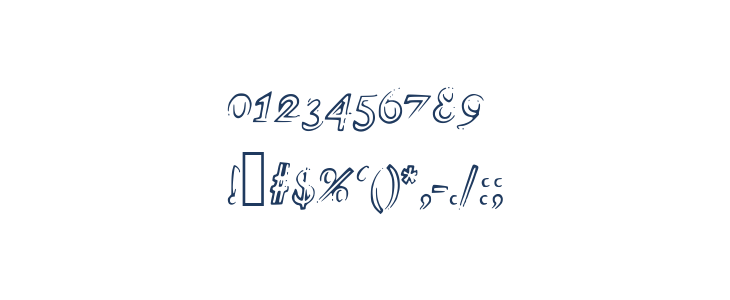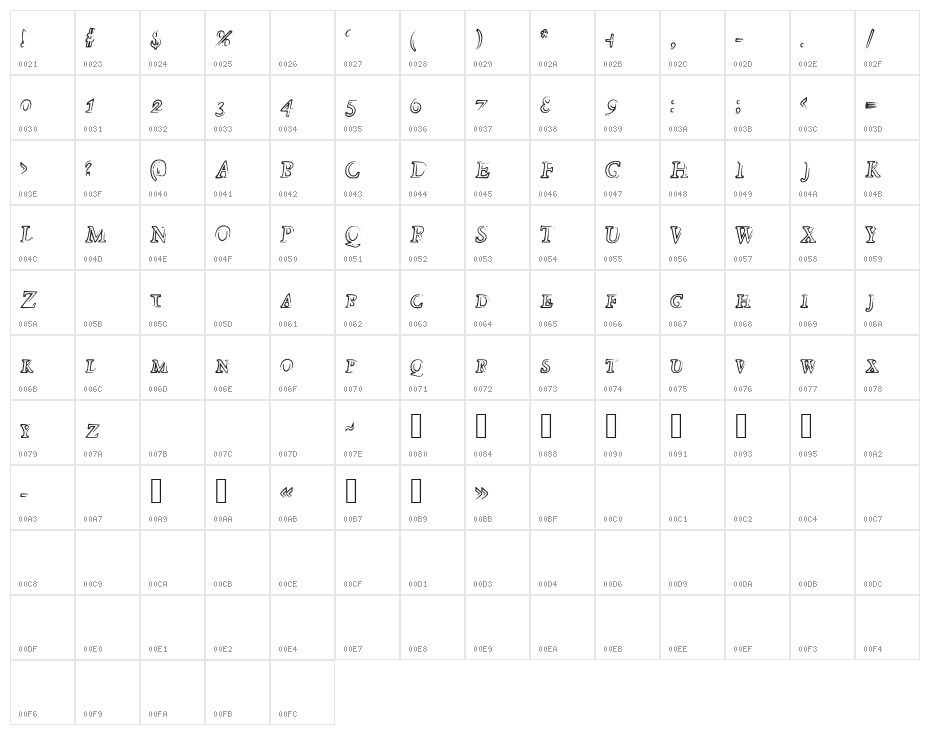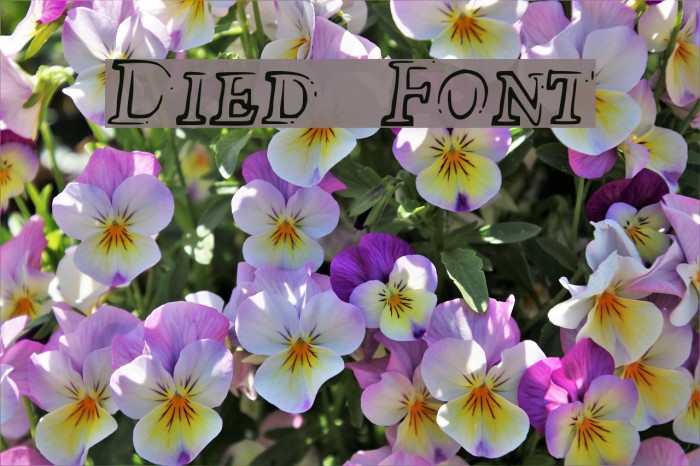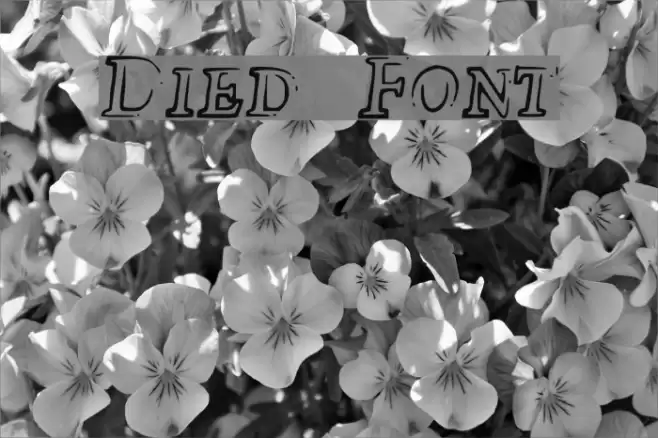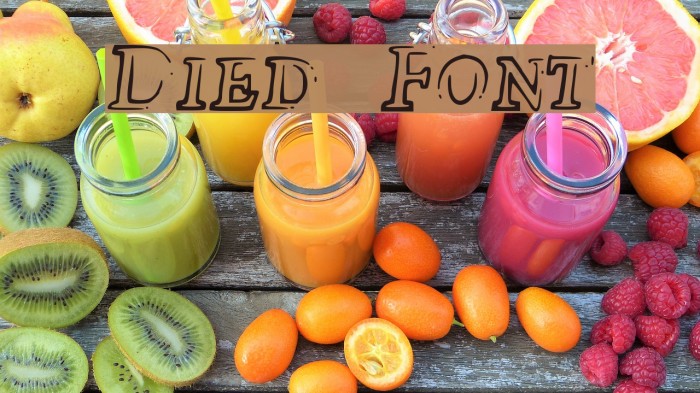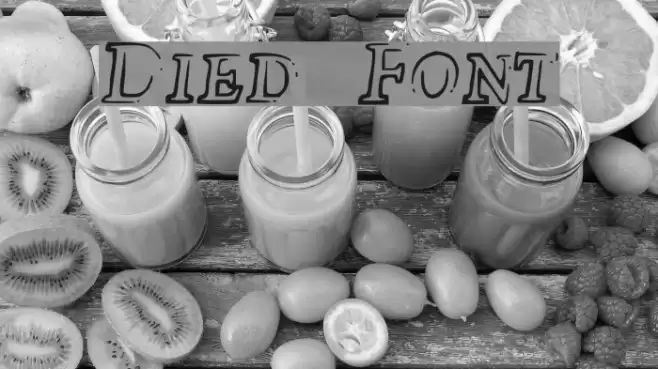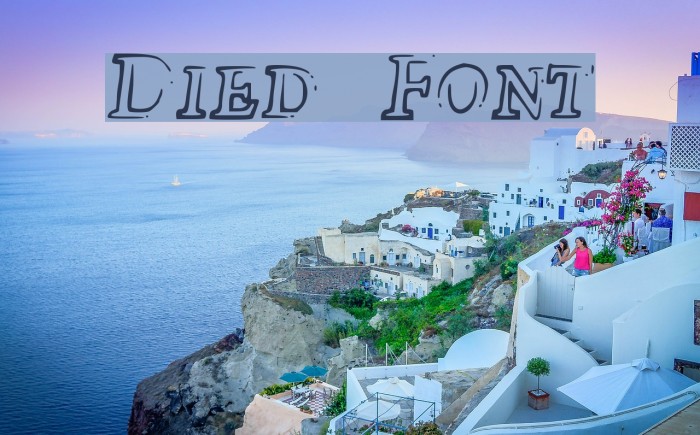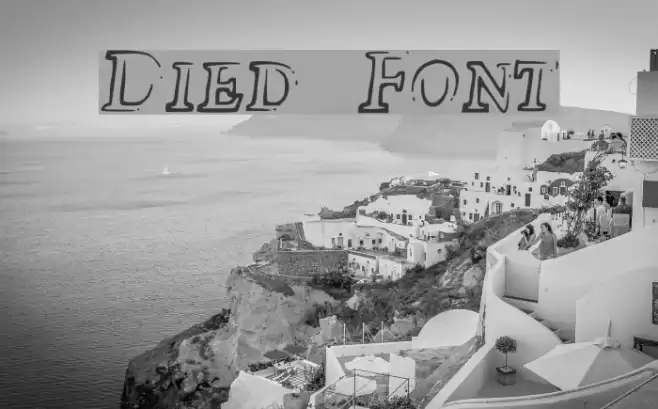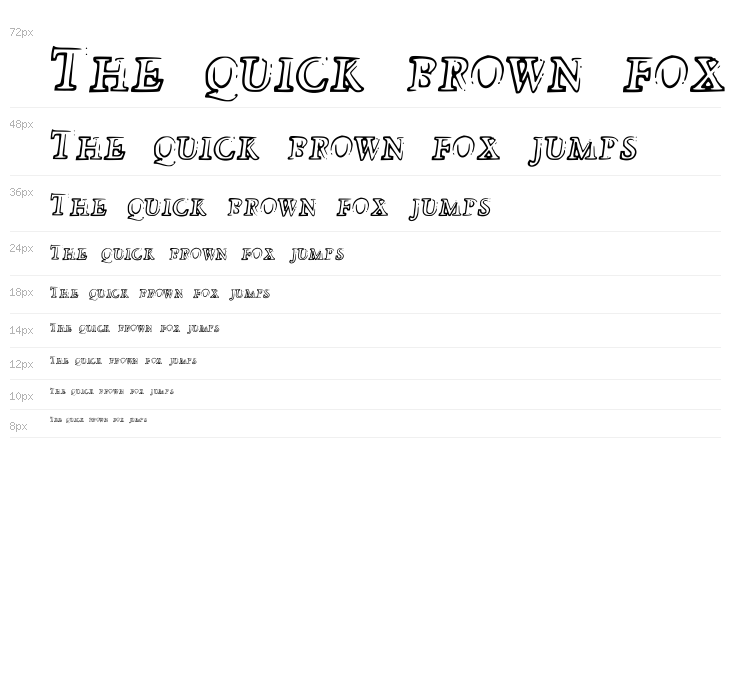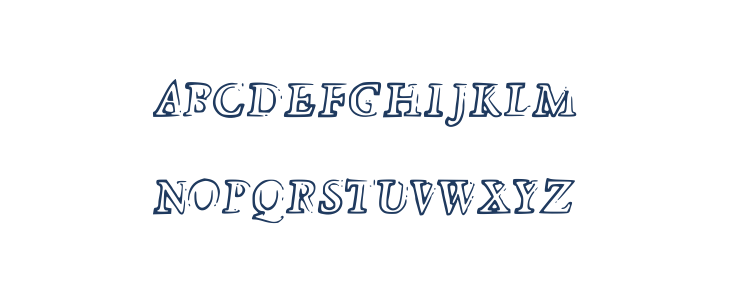
Died Font
Died Description
This font features a bold and decorative style with a vintage flair. The characters are outlined with a shadow effect, giving them a three-dimensional appearance. The uppercase letters are prominent and have a playful, artistic quality, while the lowercase letters maintain a consistent style. Numbers and special characters are designed to match the overall aesthetic, making the font suitable for creative and eye-catching designs. The font's unique style is ideal for projects that require a touch of nostalgia and artistic expression.
| Overall Style | Vintage, Decorative |
| Proposed Projects | Ideal for vintage-themed posters, creative branding, artistic book covers, and retro advertisements. |